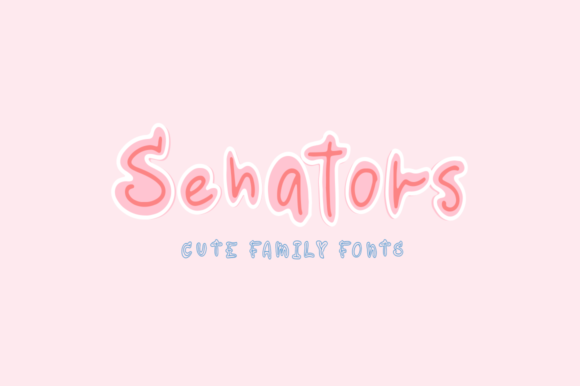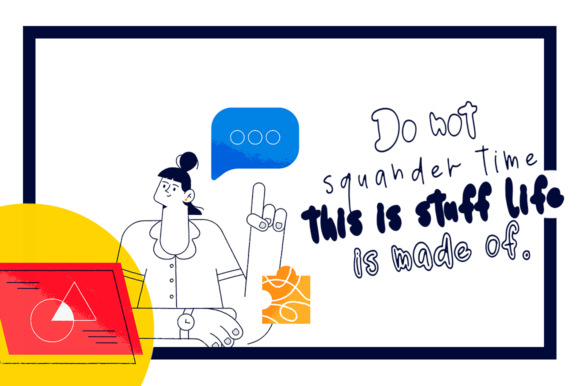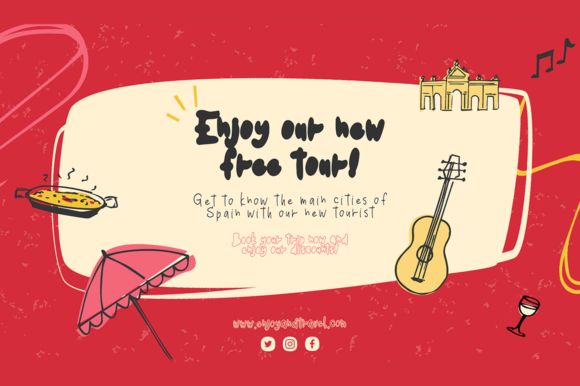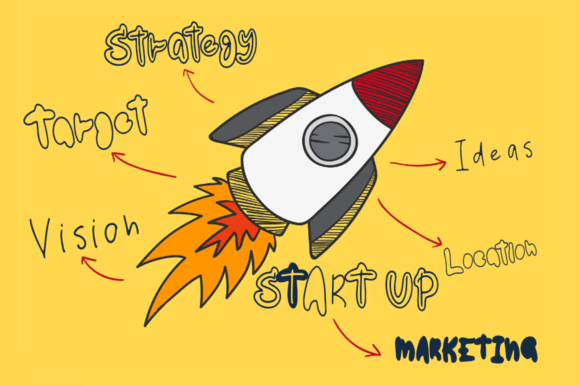
Senators Font
About Senators Font
Senators is a sweet and simple handwritten font. It is readable and whimsical and it will brighten up each of your casual designs. Add it confidently to your projects, and you will love the results.